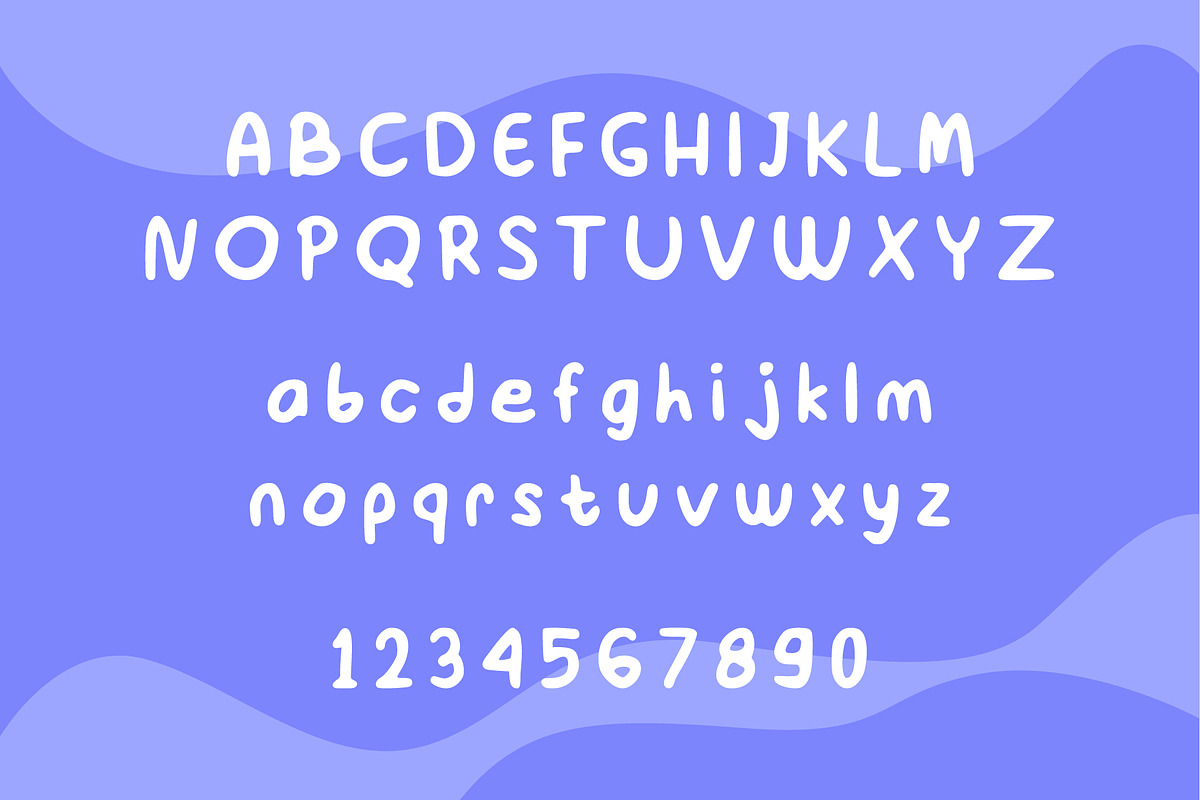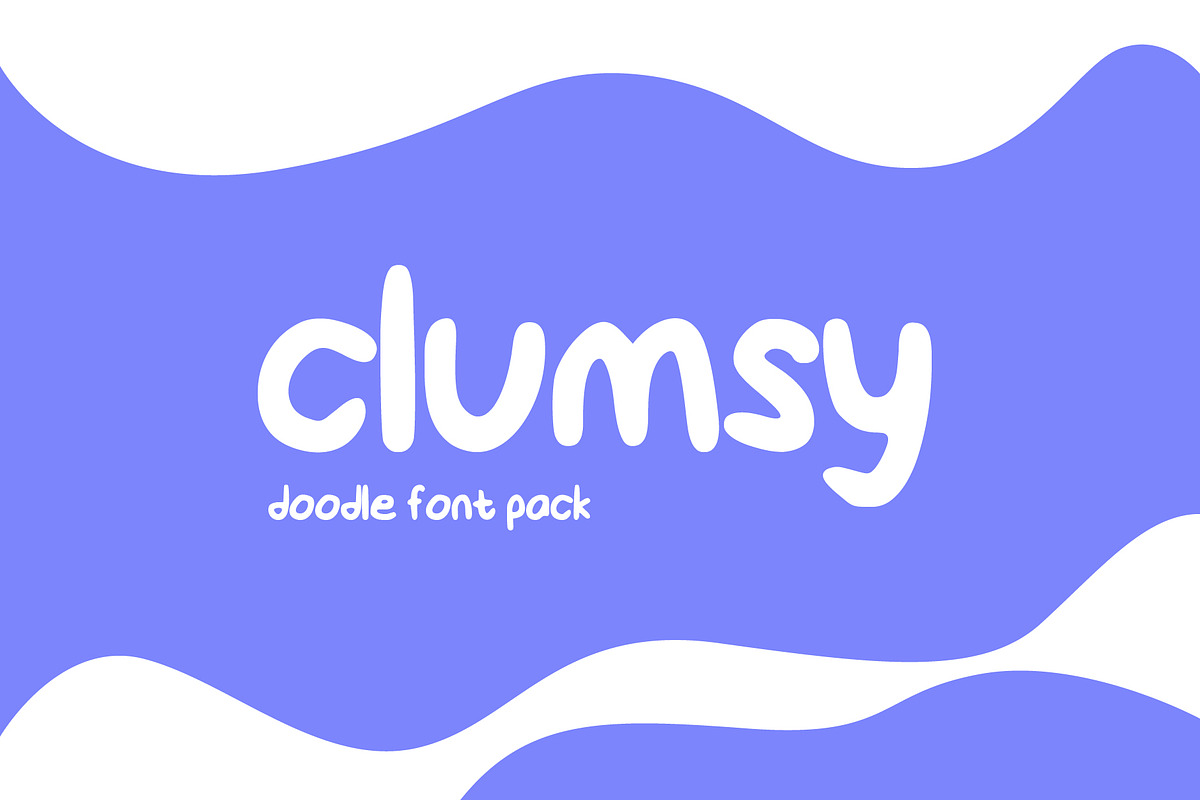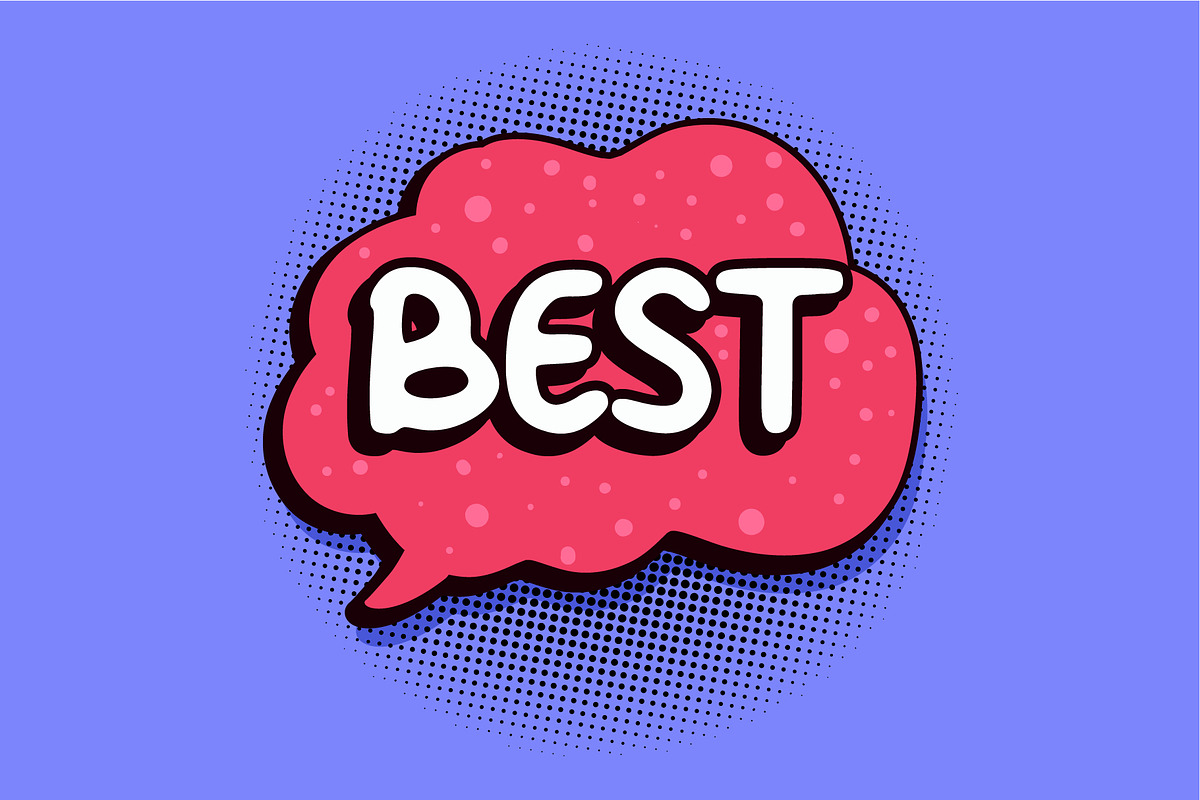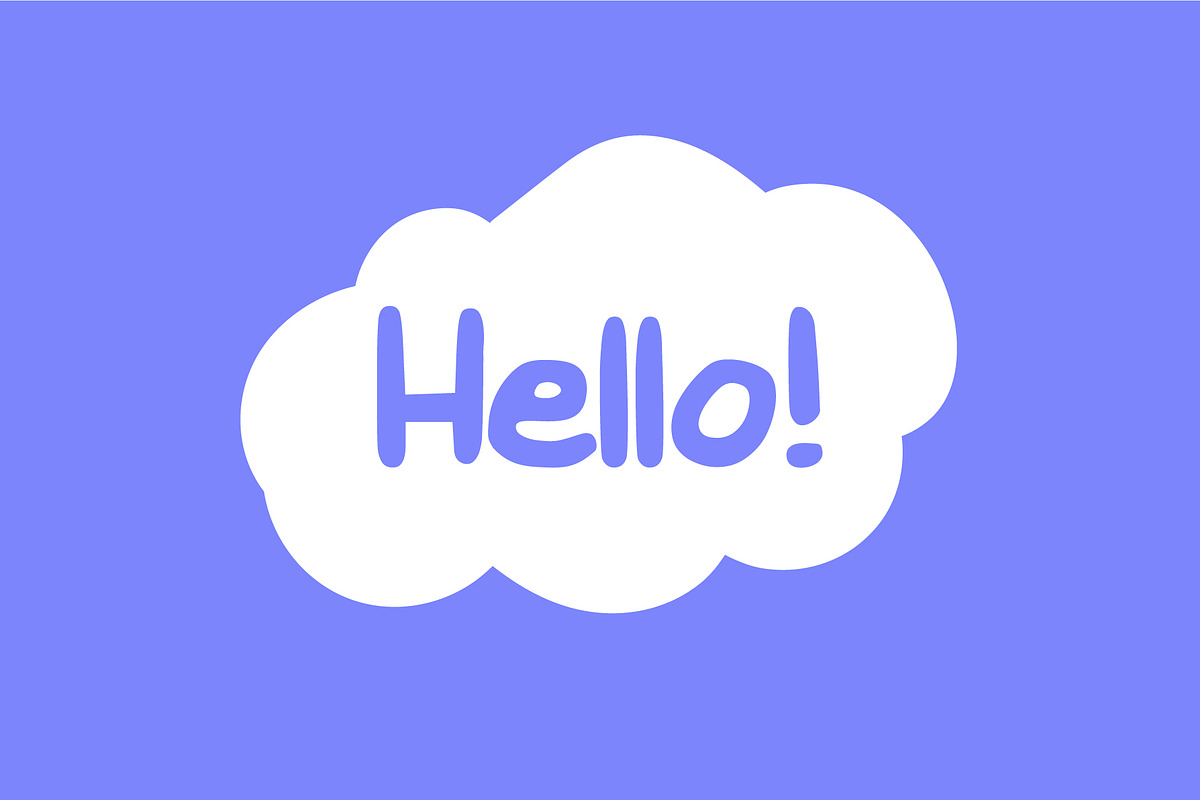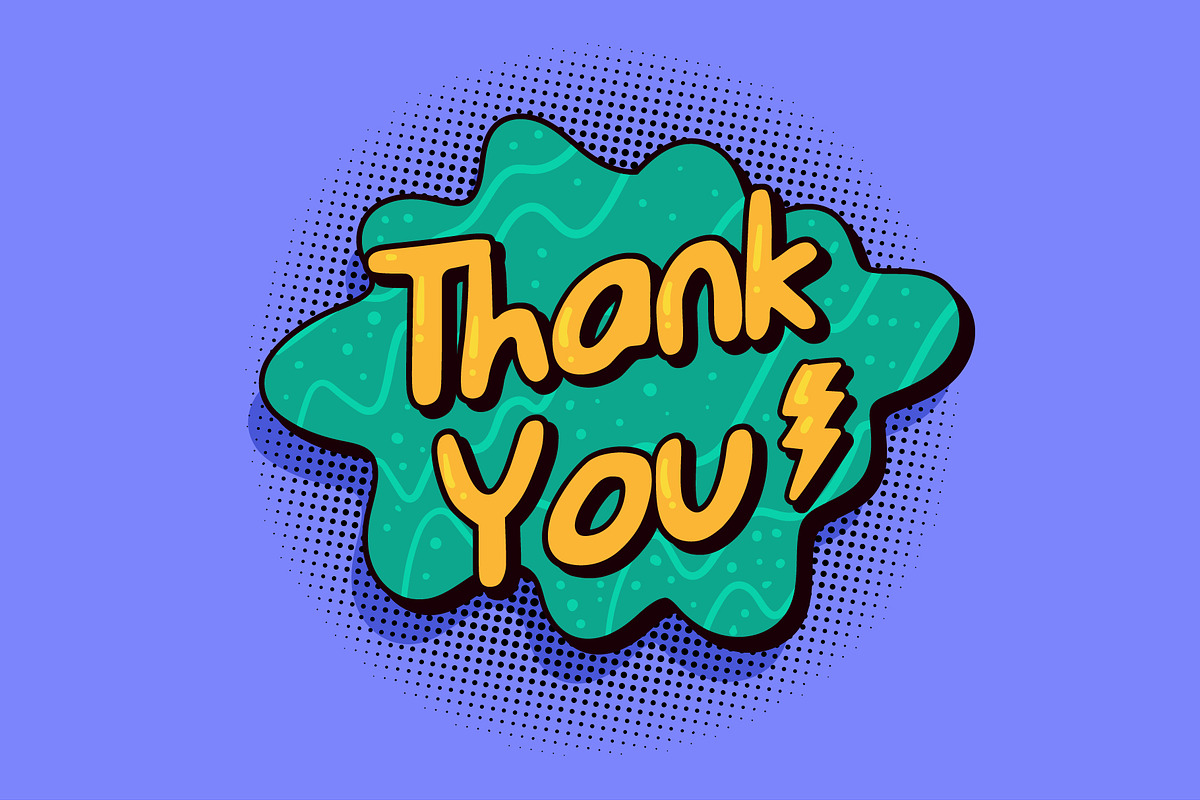
Clumsy Doodle Font Pack
Introduce : A new doodle font named Clumsy, a hand-drawn style font.
- Clumsy Regular
Clumsy Doodle Font Pack by yellowline fits naturally into Branding, posters, packaging, typography.